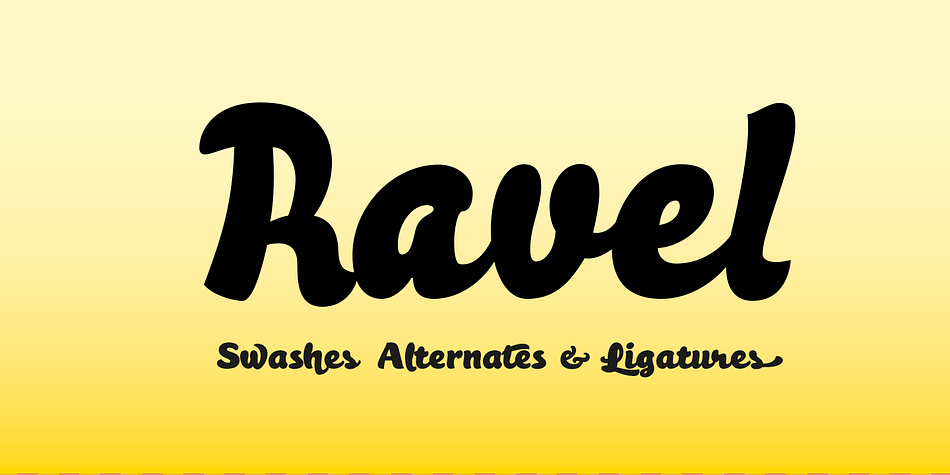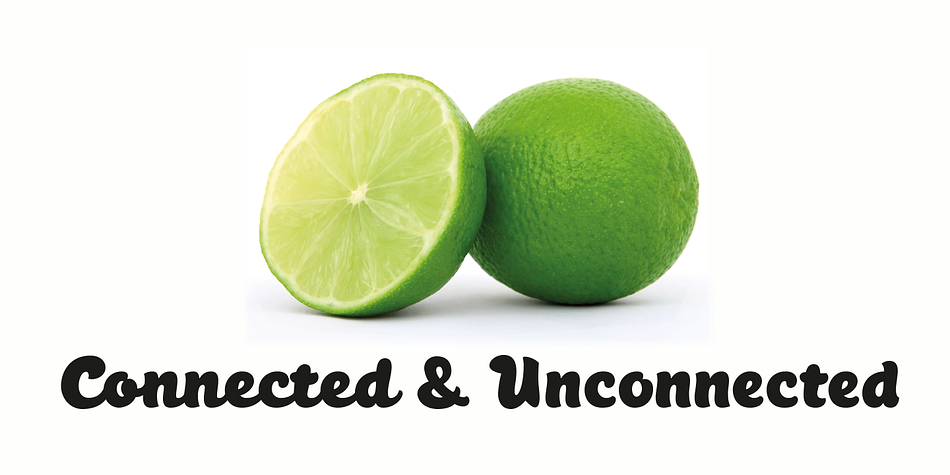
Designed by Olcar Alcaide, Ravel is a brush script font family. This typeface has three styles and was published by Eurotypo.
Ravel was a remarkable synthesiser of disparate styles. His music matured early into his innovative and distinct style.
His music has inspired the design of this family of fonts; their flexibility brings the opportunity to be used in advertising, packaging, logotypes, magazines, headlines, booklets, flyers, websites, and whatever you can imagine in a friendly and shocking communicative style.
These fonts are presented in three different styles: regular, Extended Bold and Slanted, with its stems a little bit lighter and large ascenders.
They have smooth and organic shapes. Strong visual impact, agile, dynamic, robust, readable, timeless, friendly, seductive, desirable, soft and tender, those are some of the concept that define this font.
Work with it! Play with it! Enjoy it!